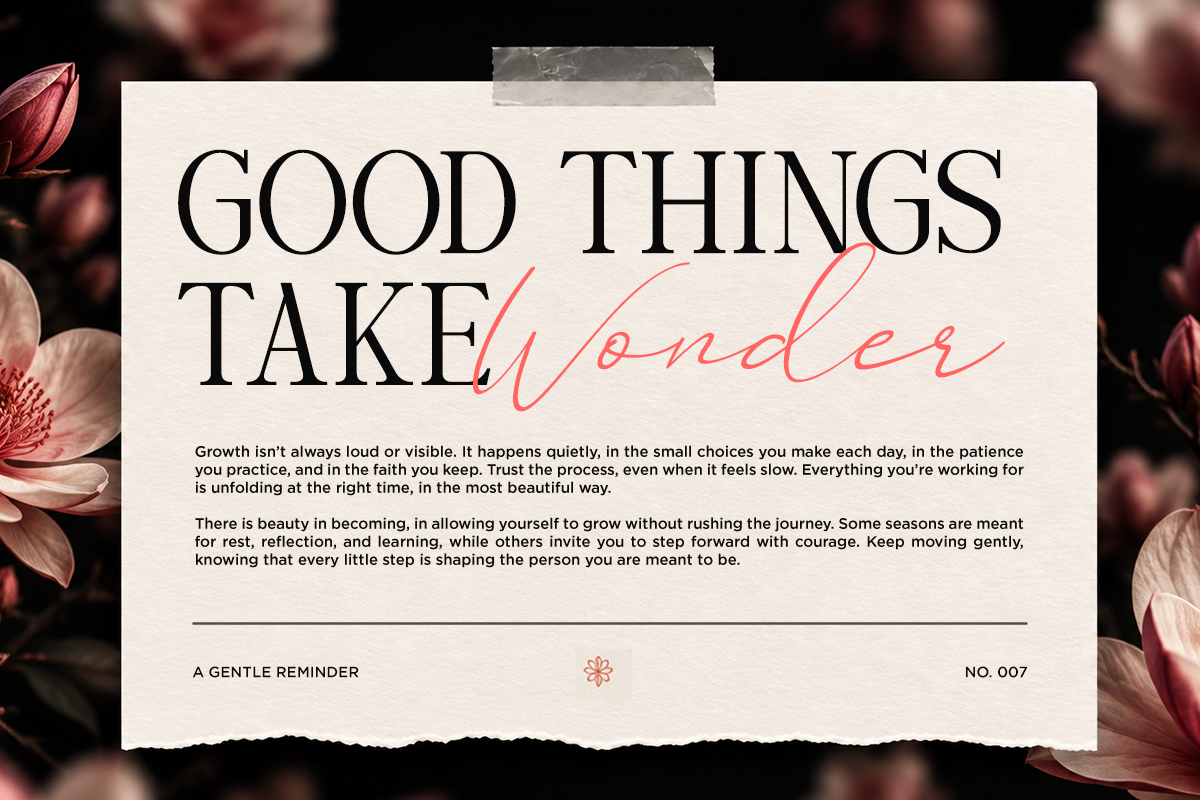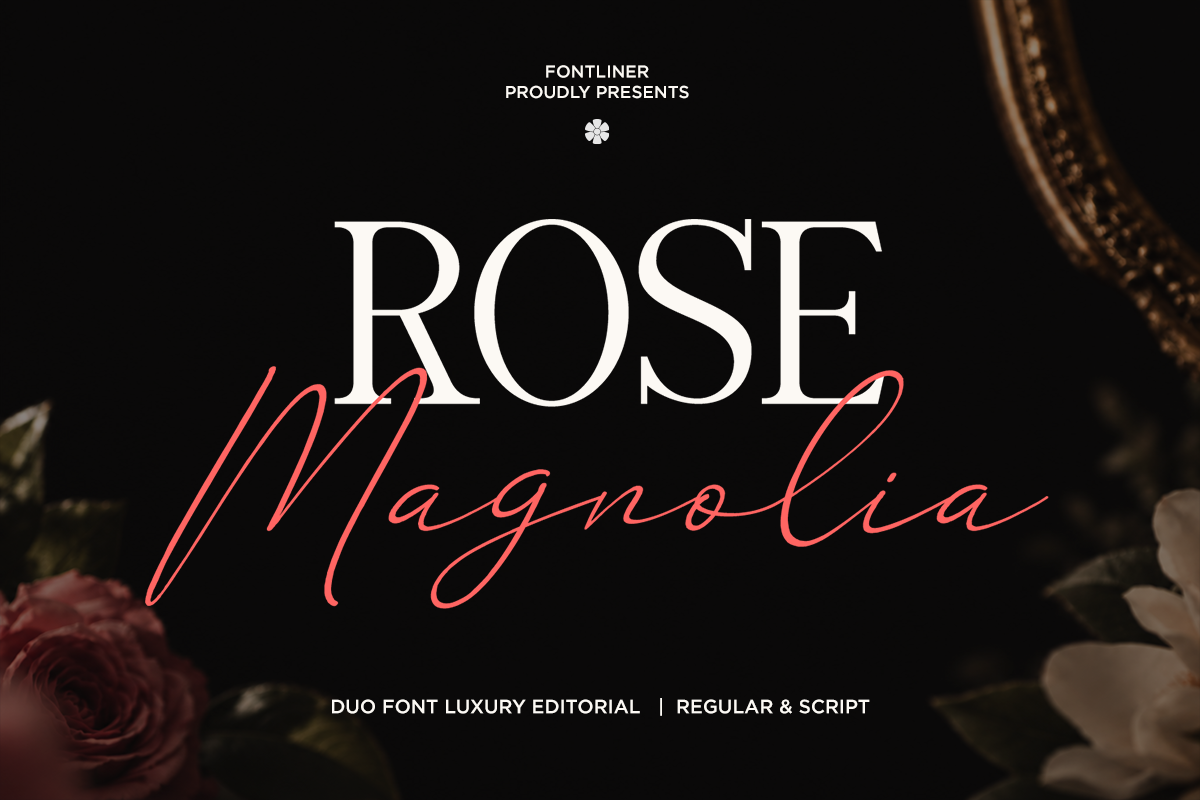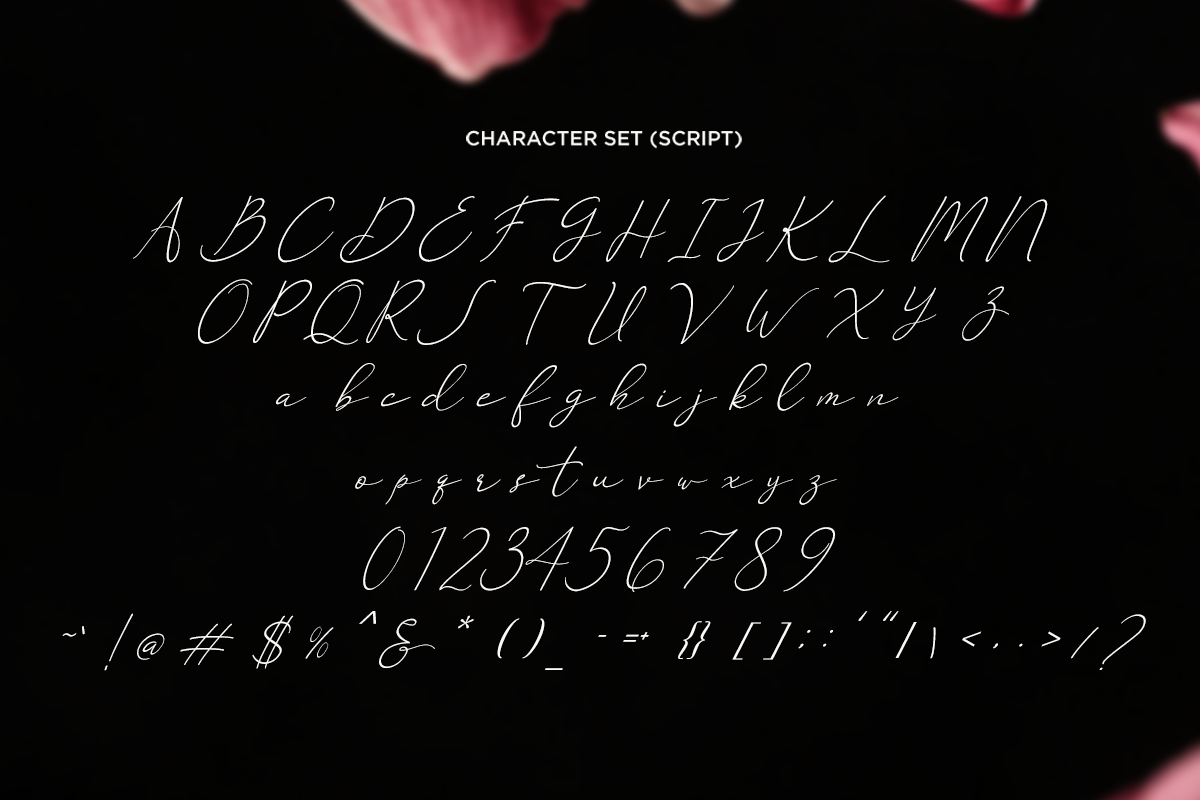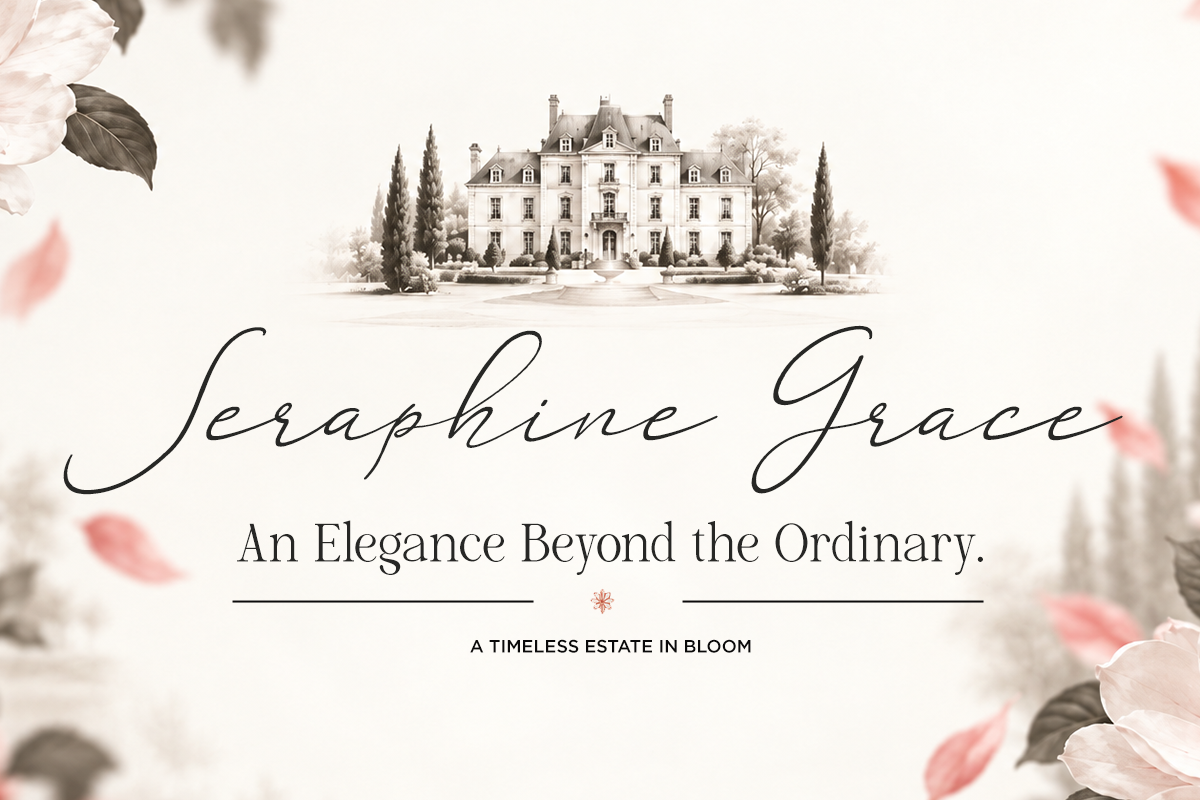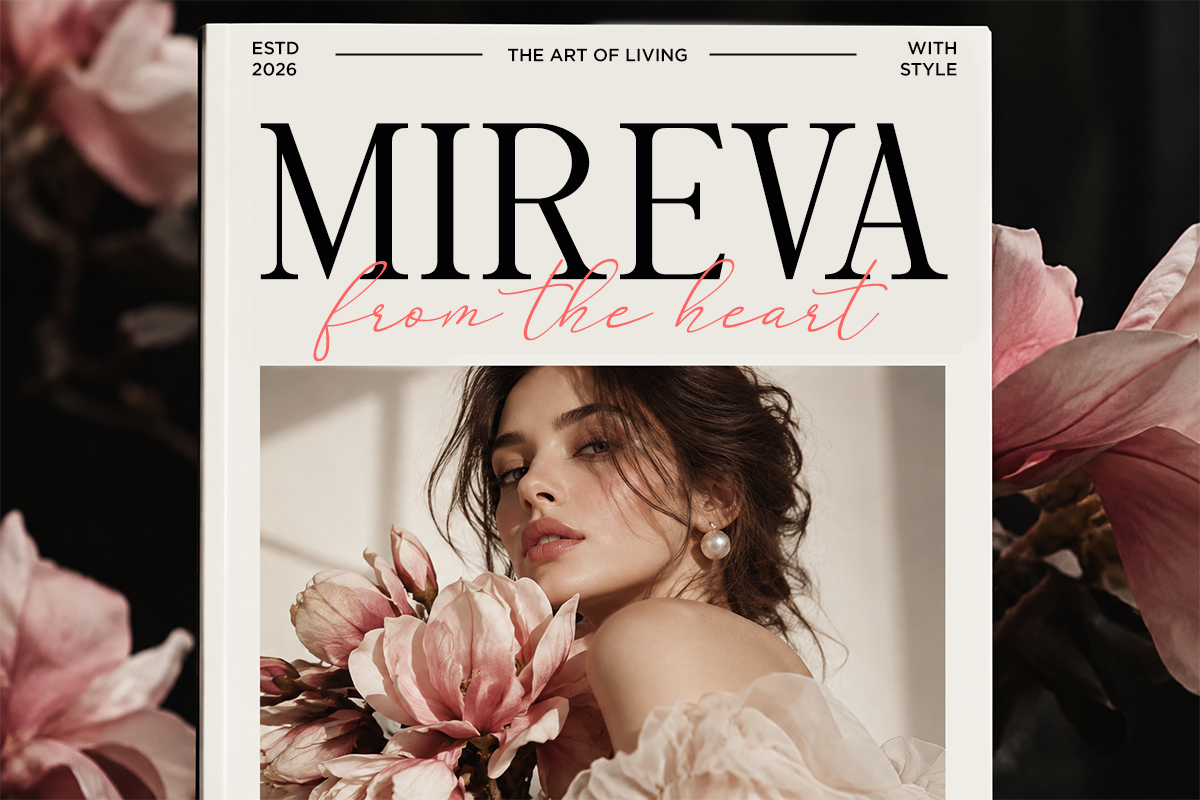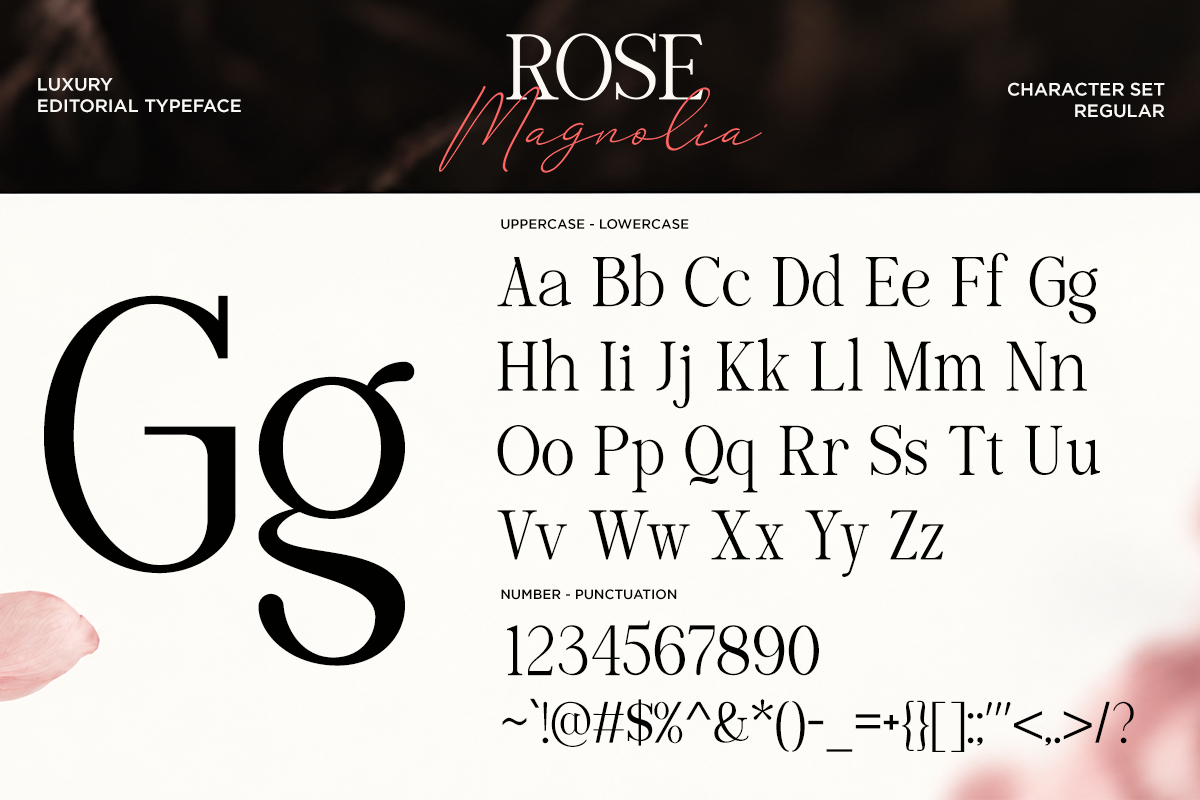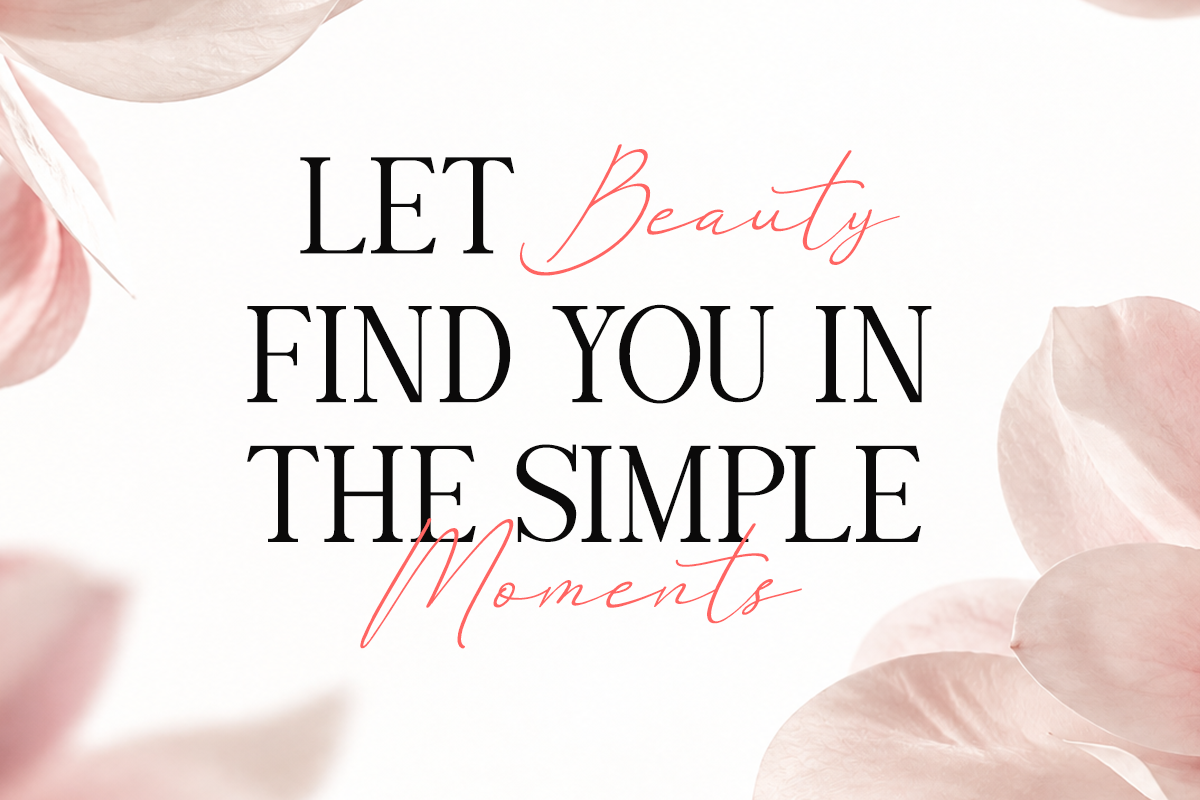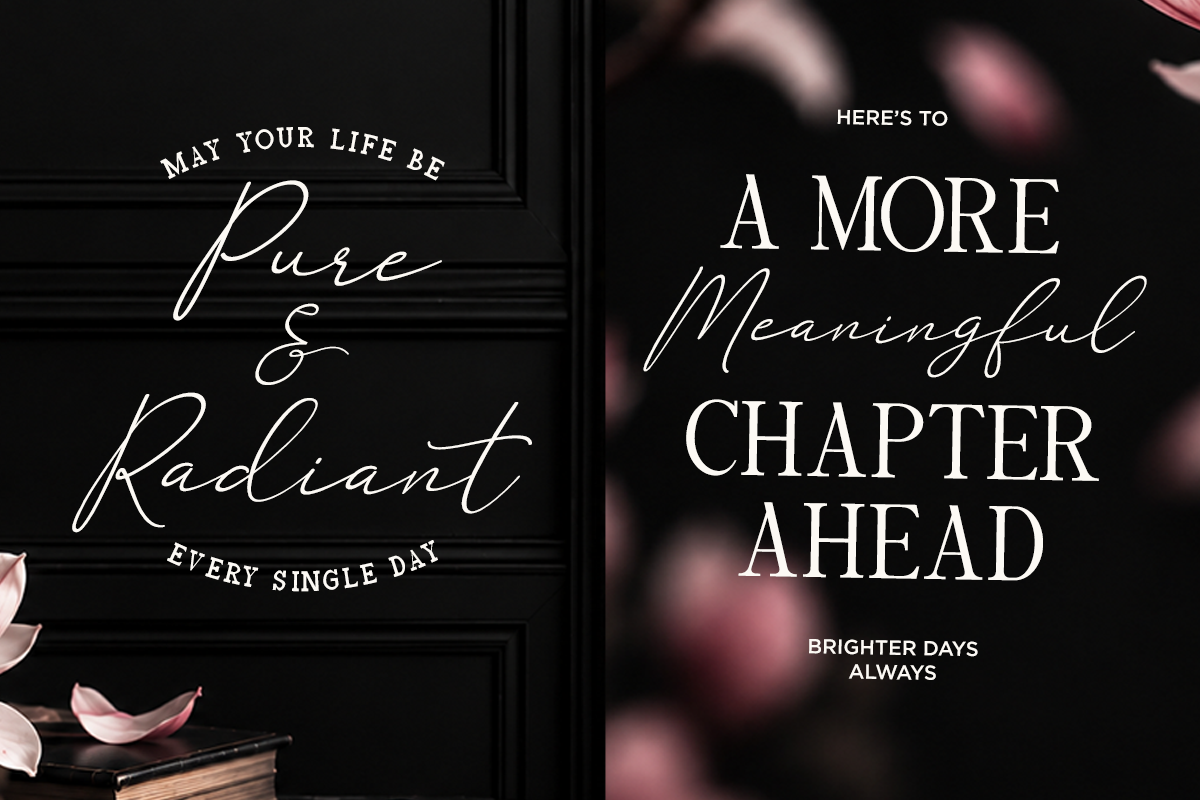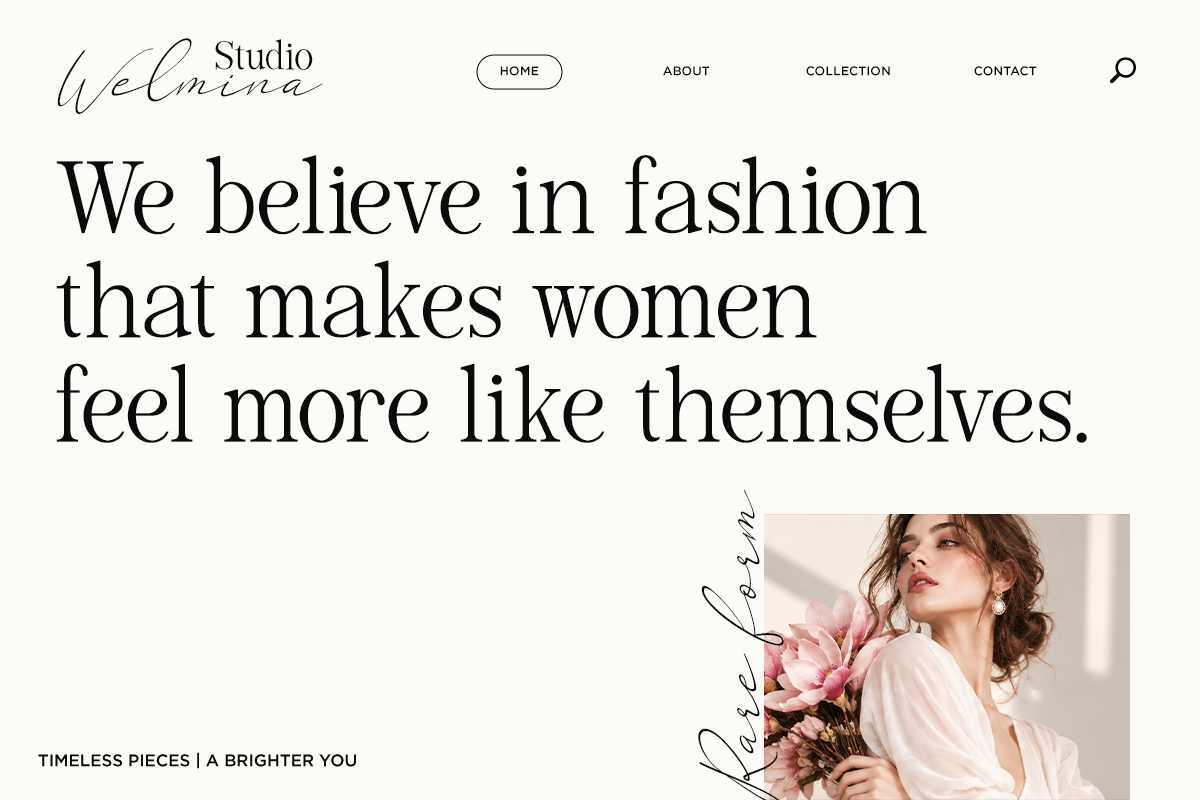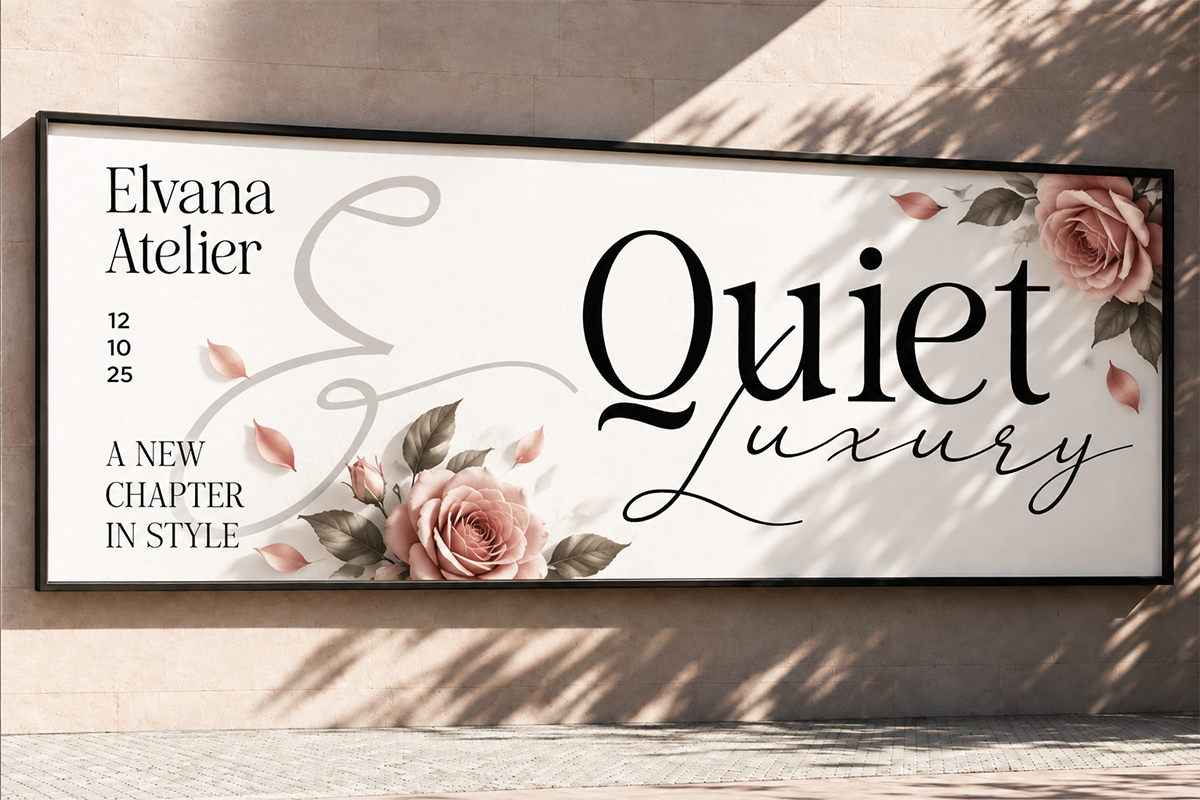
Rose Magnolia - Duo Luxury Font
Rose Magnolia is an elegant luxury font duo that brings together a sophisticated high-contrast serif and a graceful handwritten script. Designed with refined curves, stylish proportions, and a timeless editorial character, this combination creates a beautiful balance between modern sophistication and romantic elegance.
Perfect for fashion branding, beauty campaigns, luxury logos, wedding stationery, invitations, editorial layouts, packaging, social media graphics, magazine covers, photography branding, and elegant advertising. Use the refined serif for strong headlines and sophisticated statements, then pair it with the expressive script for signatures, accents, and delicate details.
Rose Magnolia is made for projects that need a polished and feminine visual identity. From luxury fashion editorials and boutique branding to wedding invitations and beauty packaging, this versatile duo gives your typography a distinctive premium feel while remaining elegant and highly adaptable across both digital and print applications.